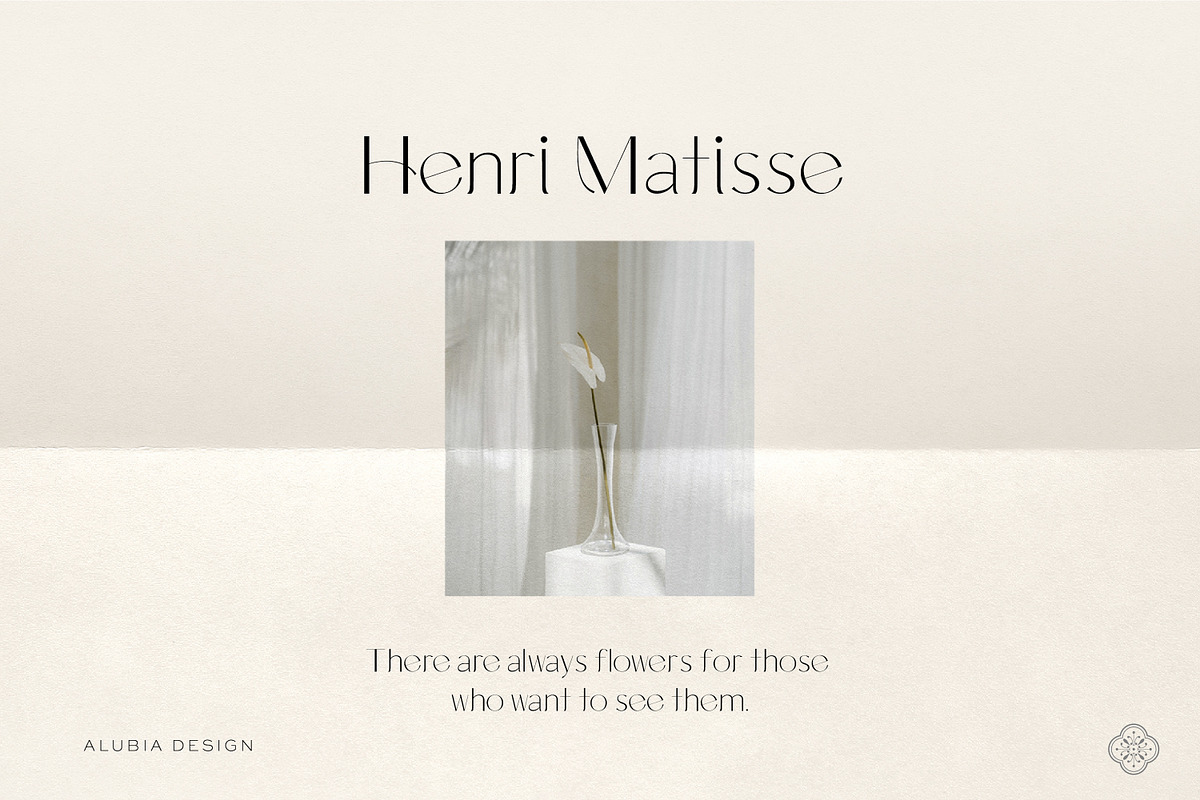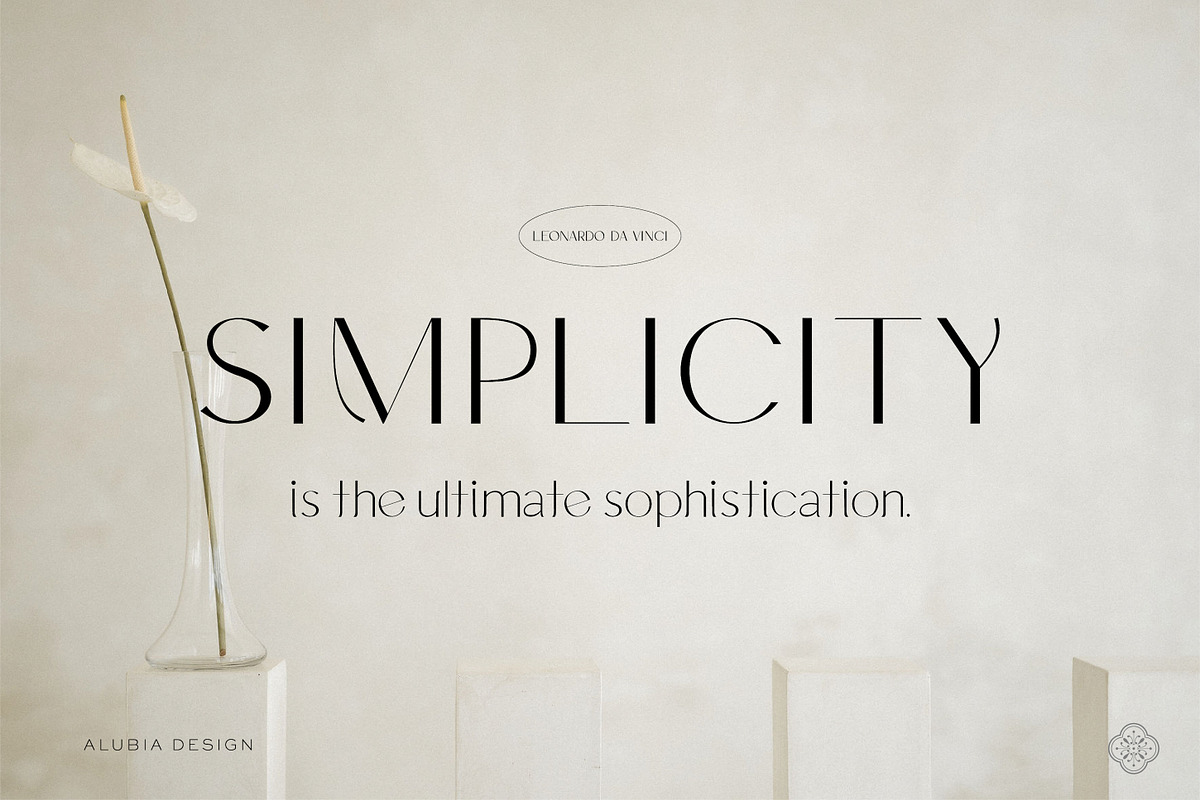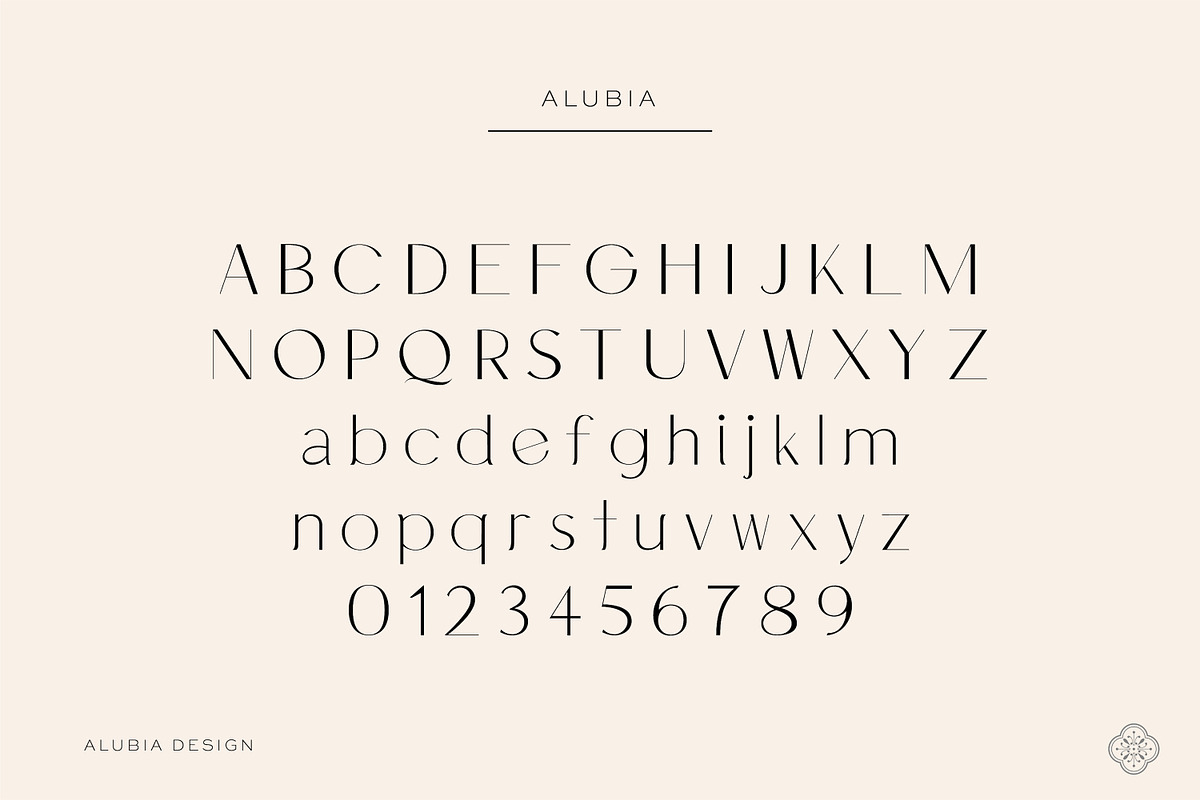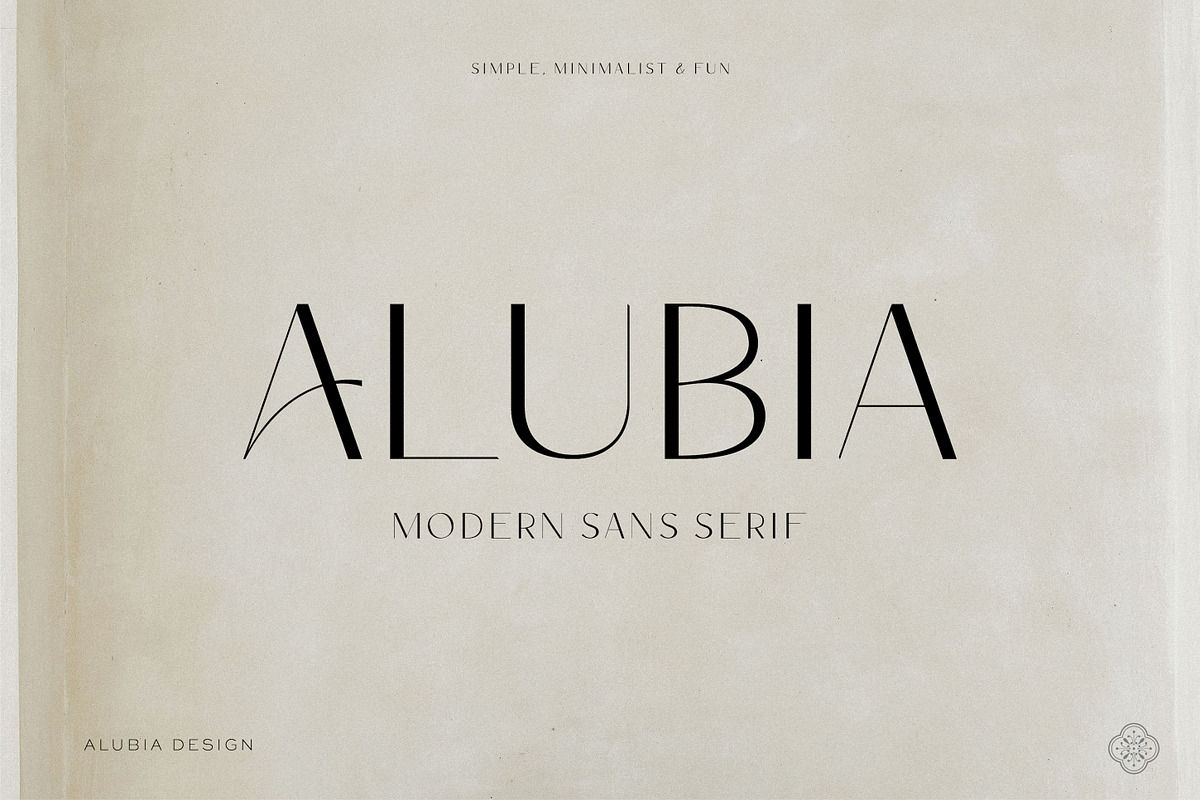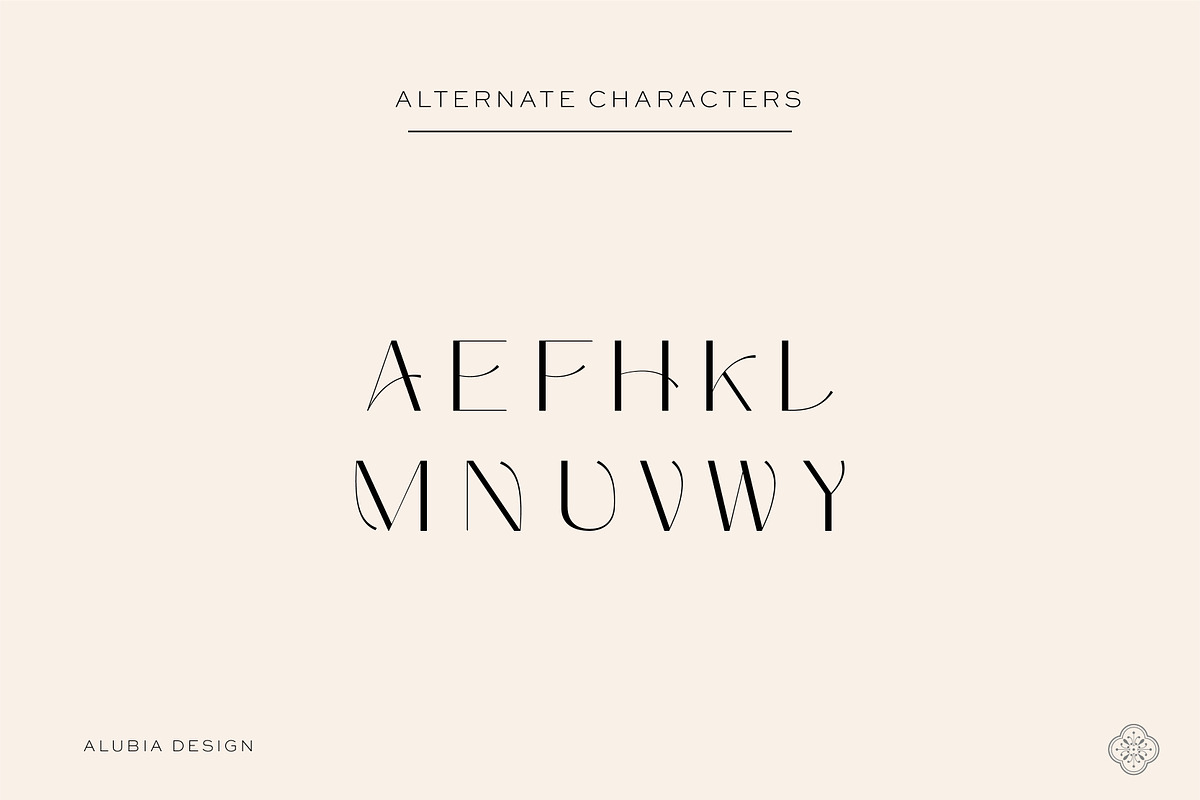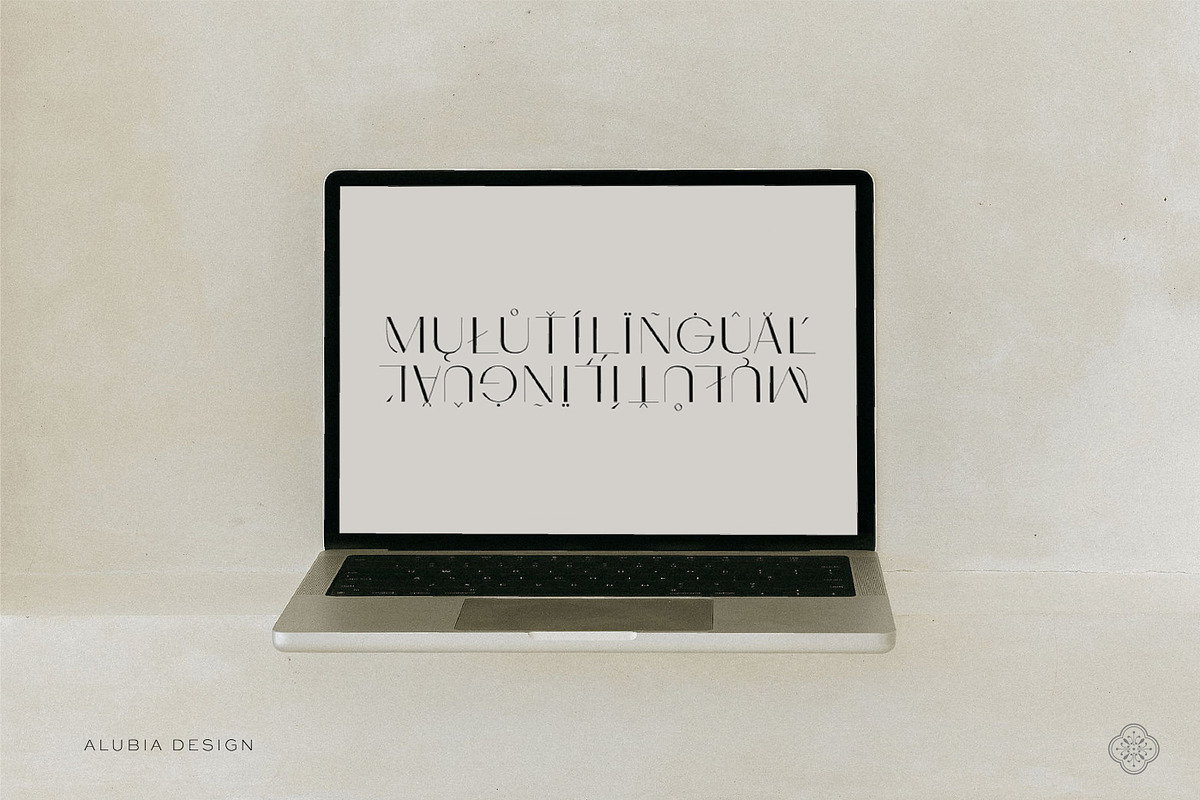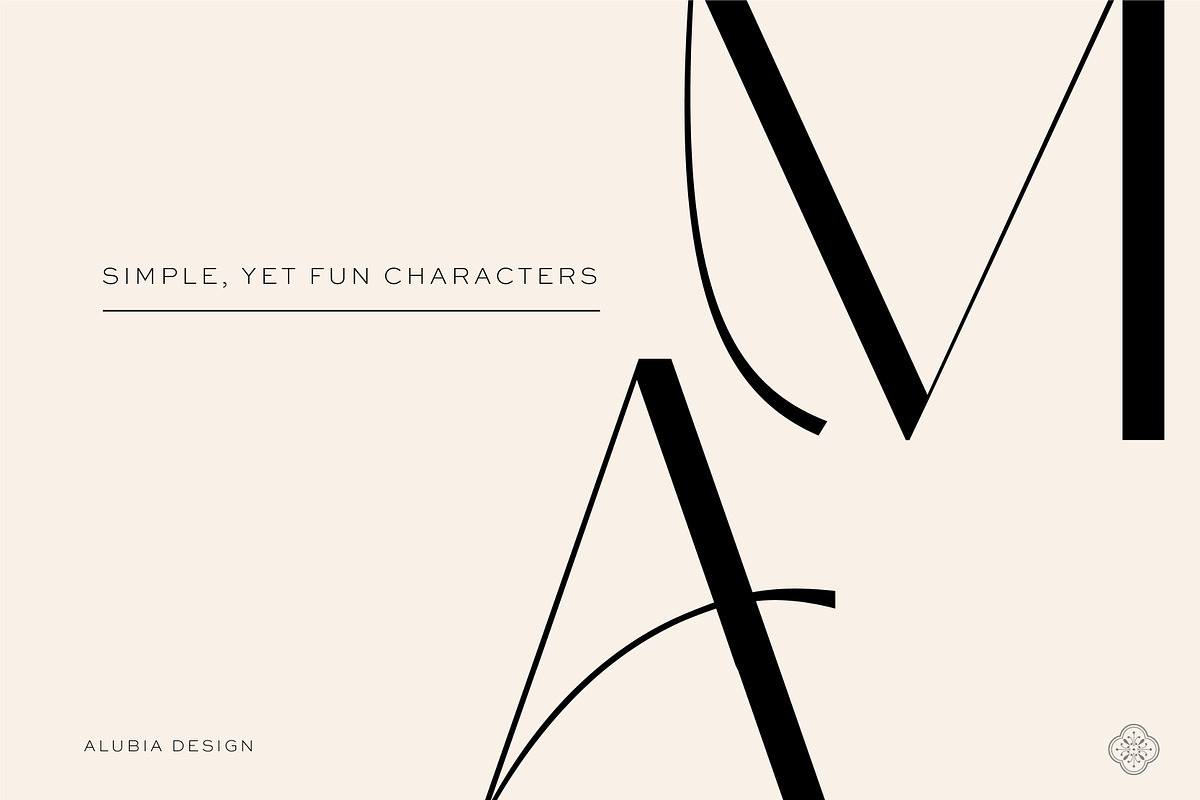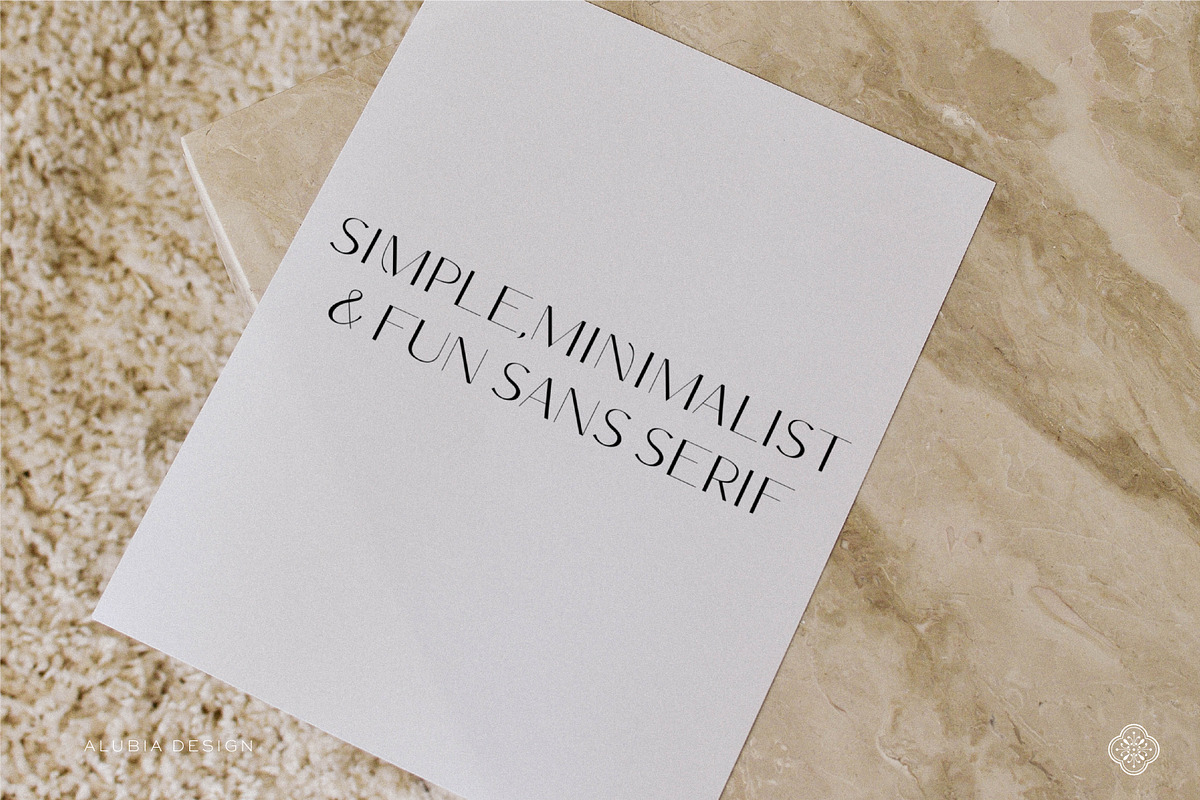
ALUBIA - modern sans serif
Introducing 'ALUBIA' - simple, minimalist, and fun sans serif, This font is perfect for branding, logo design, and more. Enjoy!
Includes full set of: +Uppercase and lowercase letters +multilingual characters +numerals +punctuation *Only REGULAR ver. included (no bold or italics)